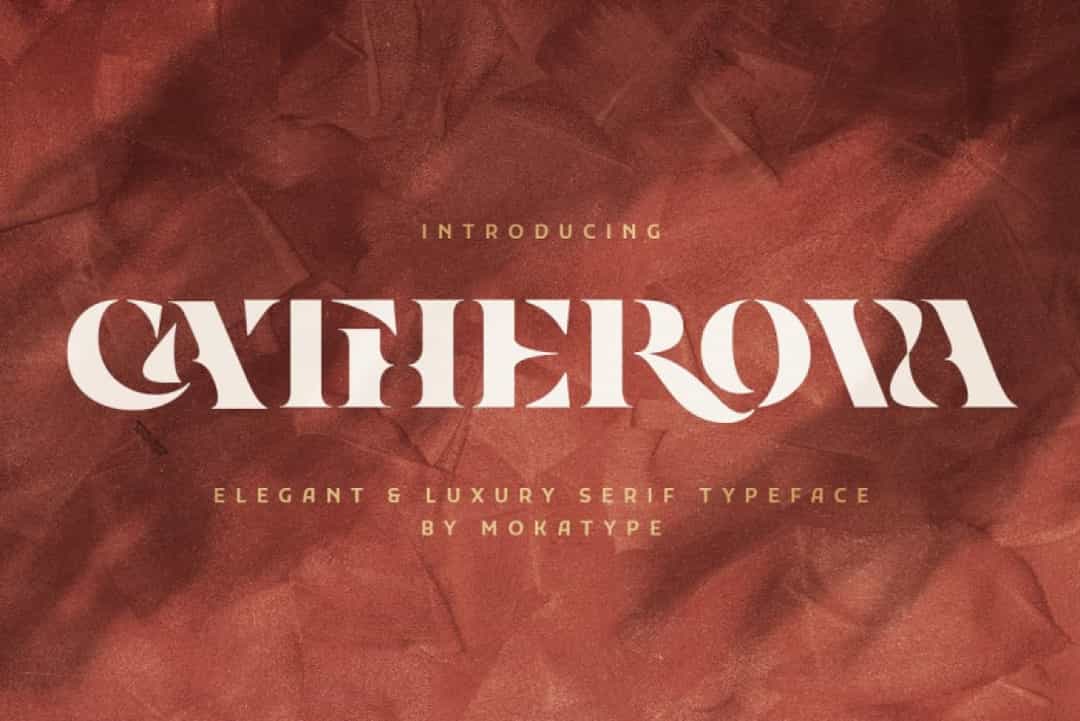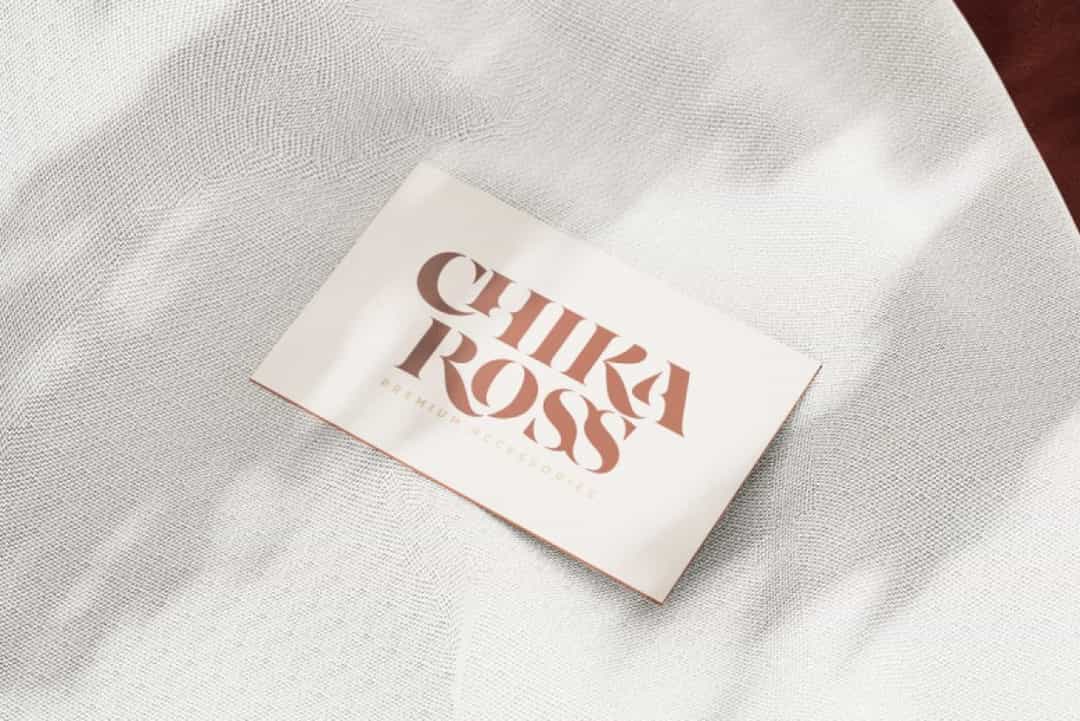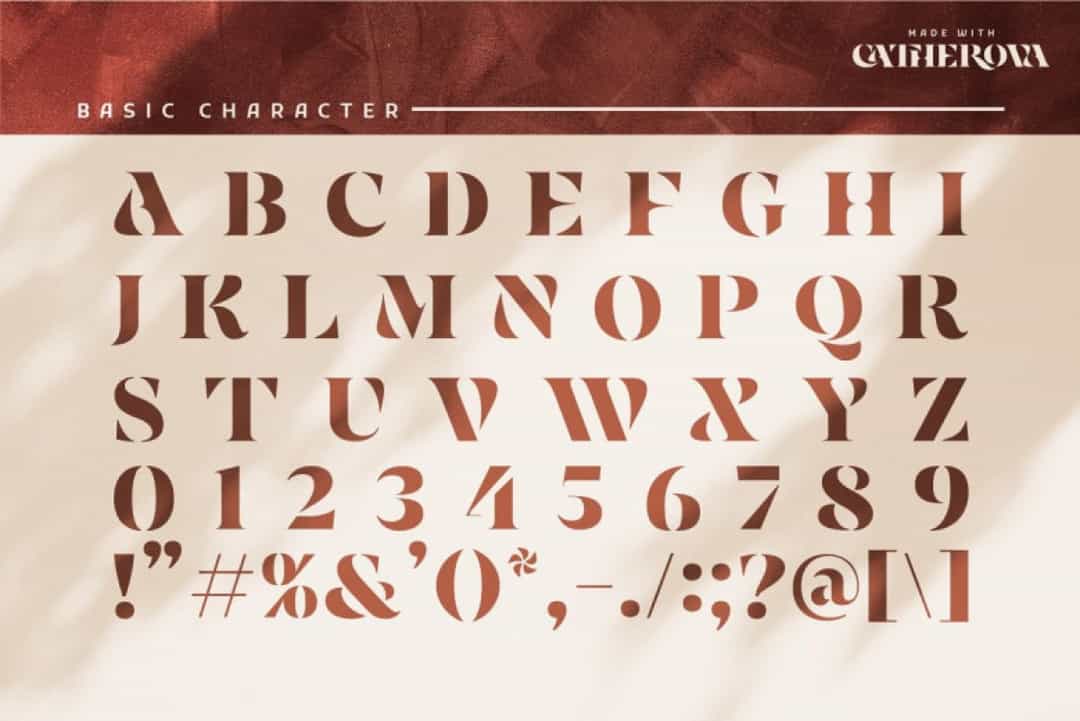
Hello and welcome to Catherova – a lovely display serif font inspired by the luxurious logo for use in creating brochures, logos, templates and videos for advertising campaigns as well as for brochure design projects in general.